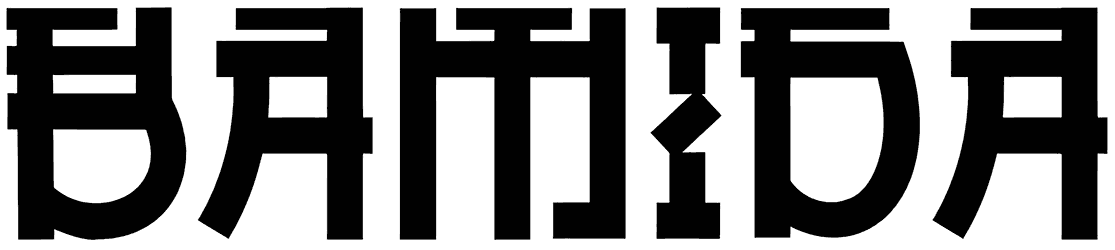
Bamida Font
You have got the whole attention of your followers with a distinct visual, and this Asian font can provide such a striking face for your design. Bamida, as a Japanese font, shows an obscure visual that can be mesmerizing. There isn’t a cover of numbers, but lots of projects can benefit from this eye-catching font and make your name memorable.
BAMIDA is a Japanese-themed display font that uses the most natural fonts to create a stunning, natural, and elegant visual presentation.
If you select this typeface, your project will have a graphic presentation that your audience will enjoy. It will be striking, well-known, and easy to recall.Terms Of Use